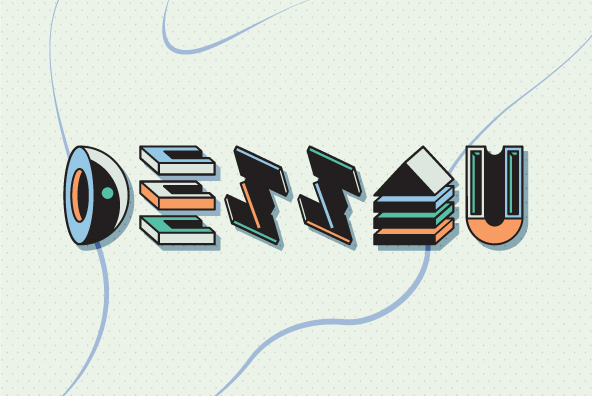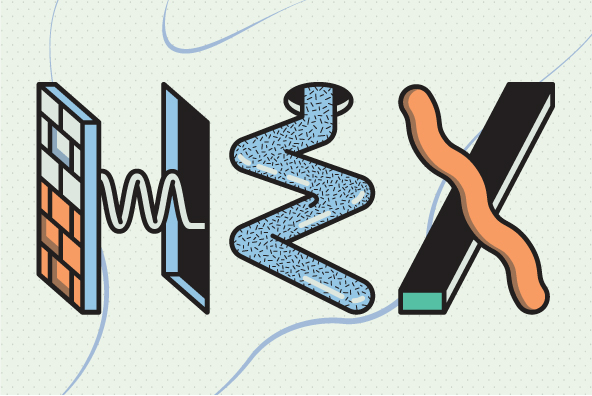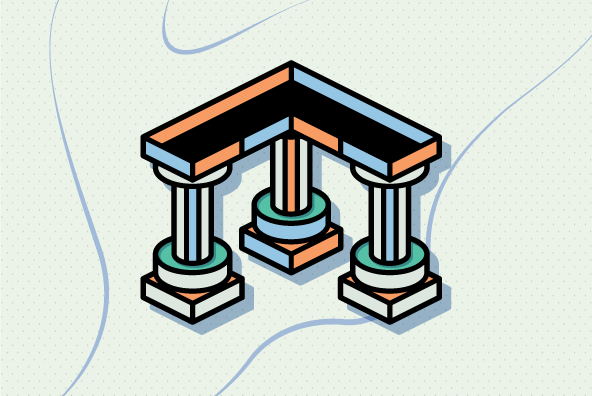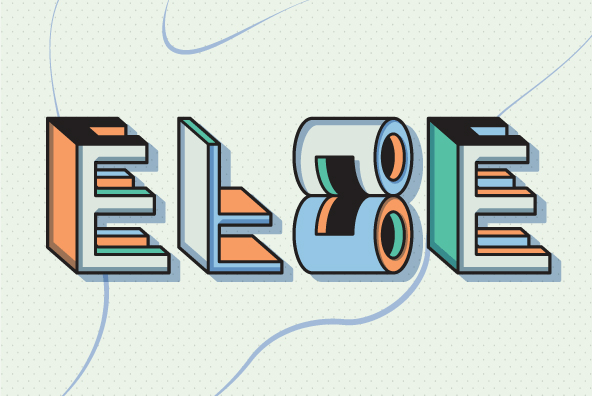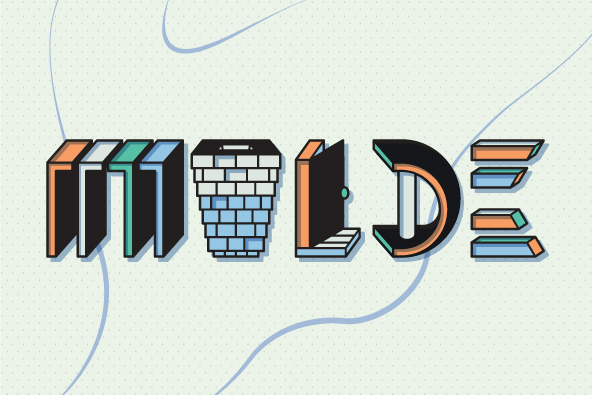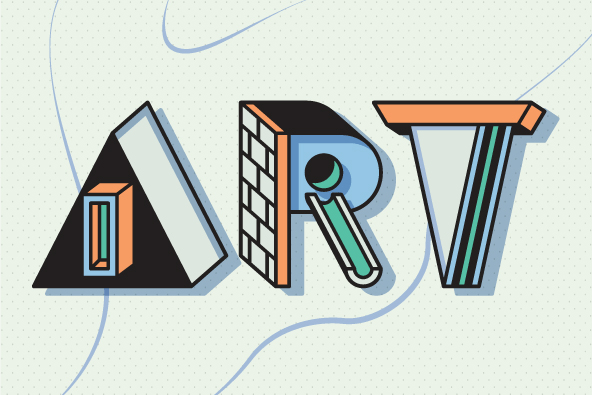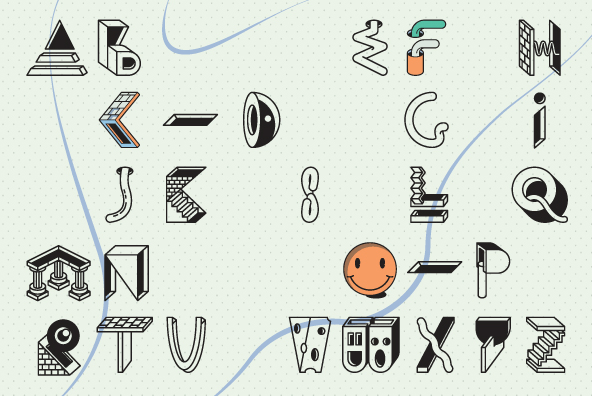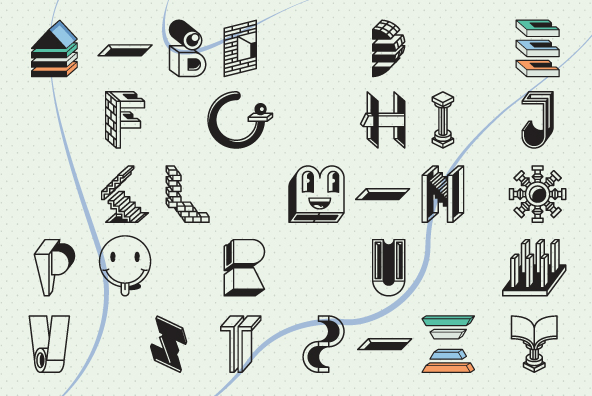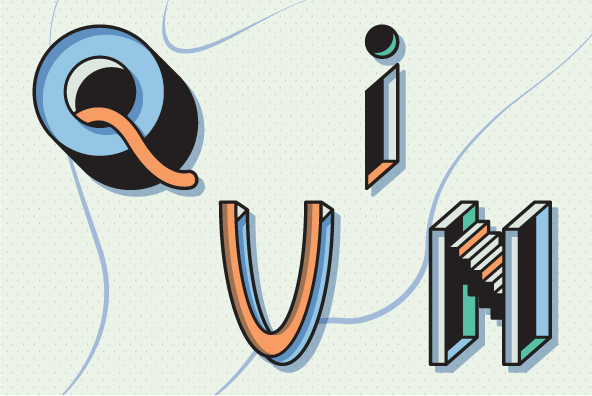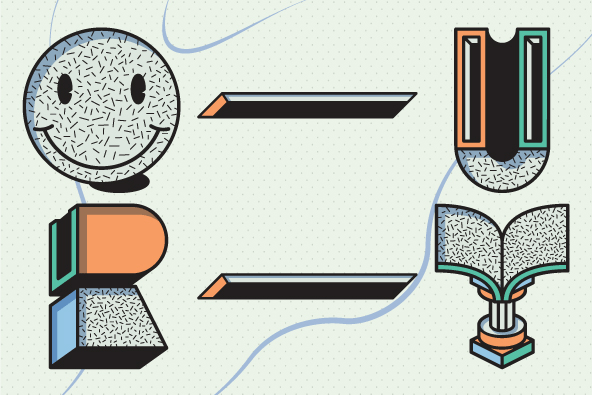
YWFT Dessau
Font Family by YouWorkForThem
Think drugs, lots of drugs. Pictograms and schizograms. This is a whole new level of crazy for YWFT, and is quite possibly the most seriously f**ked up thing we've ever done. Designed with numerous different styles that you can layer to create endless permutations of depth and 3D.